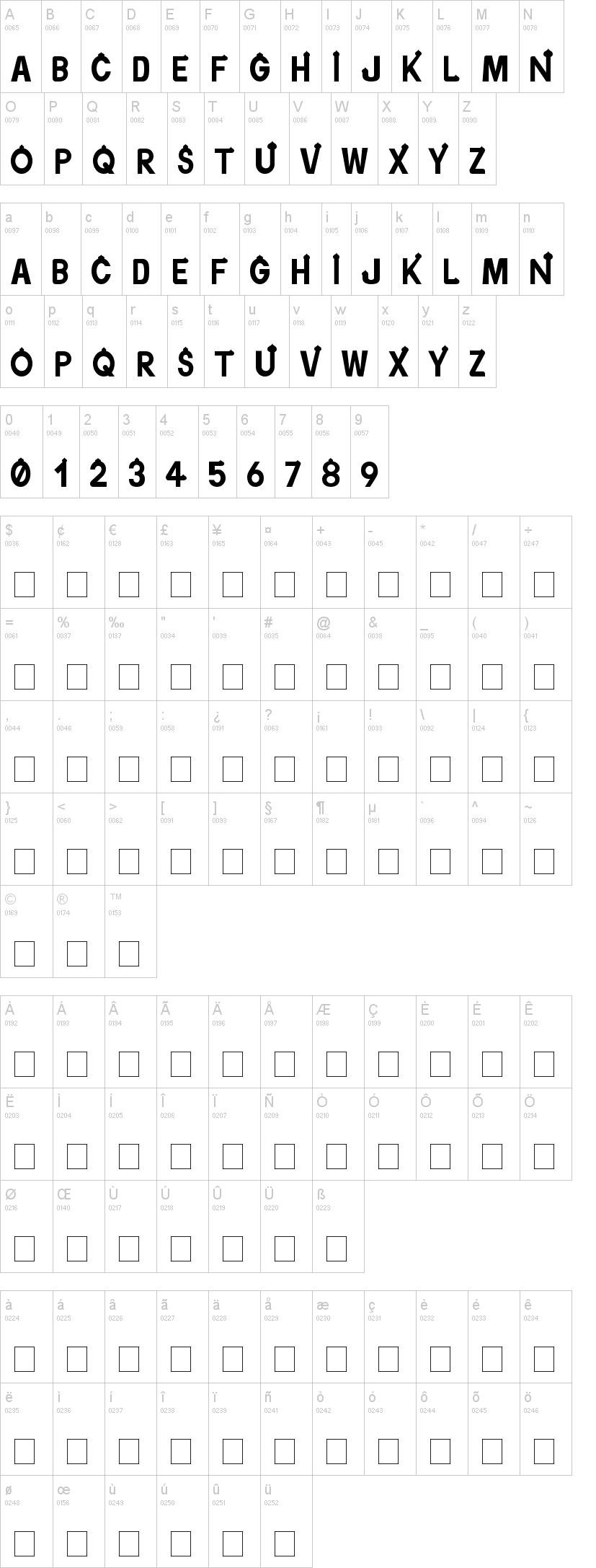
Note of the authorORIENTYPES Typeface is the new font with simple, minimalistic and has somewhat Asian style.
Because when we started to design this typeface, it was motivated by a very beautiful gold crown from Korean ancient kingdom, Silla.
Very suitable for various design projects like logos, taglines or clothing design, labels, posters and all large size text display.
This font is available in these (letters-numbers-glyphs):
A,B,C,D,E,F,G,H,I,J,K,L,M,N,O,P,Q,R,S,T,U,V,W,X,Y,Z
0,1,2,3,4,5,6,7,8,9